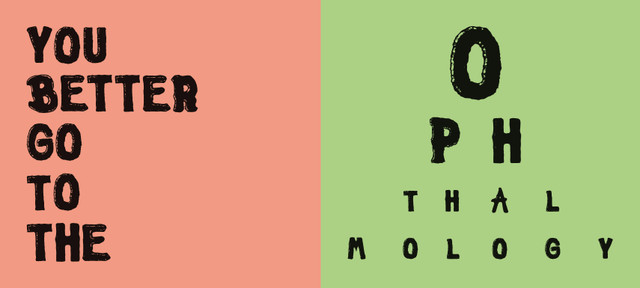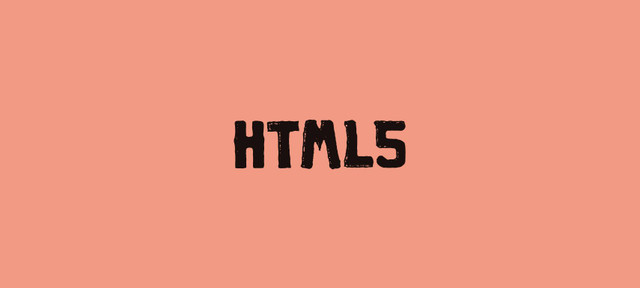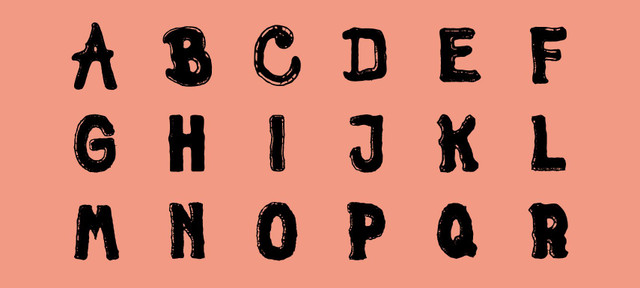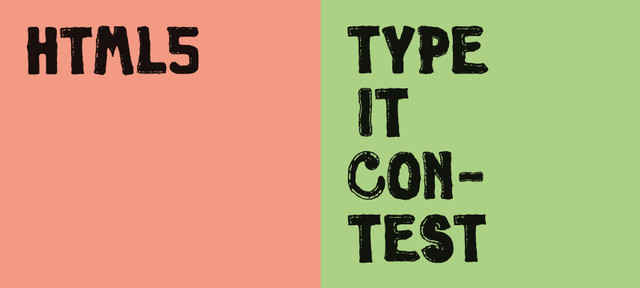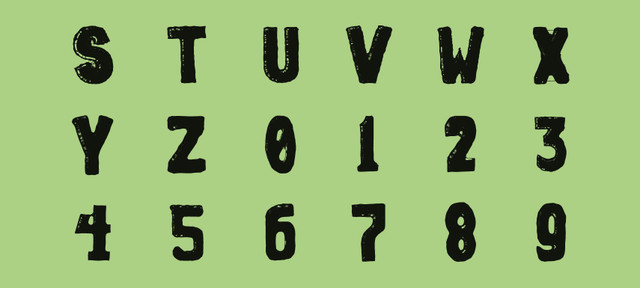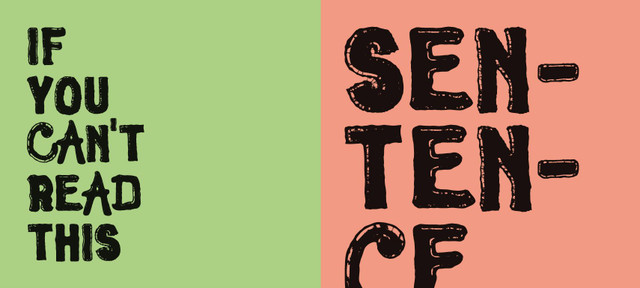
HTML5 Typeface - Type it Contest - Drawing Experience Through Html5
Type it was a Typographic Creation’s International Contest with free theme, called across the network and seeking to stimulate the creation of fantasy typography between creators around the world.
As a signup entry Tokyo o’Clock Studio in partnership with António Segurado have created “HTML 5” a typeface developed through a web application based in HTML5 to draw in someway out of control of any meditated perfection. Unfortunately the web application we have used is no longer online.
This was the result…
Title : HTML 5
Type Design : António Segurado